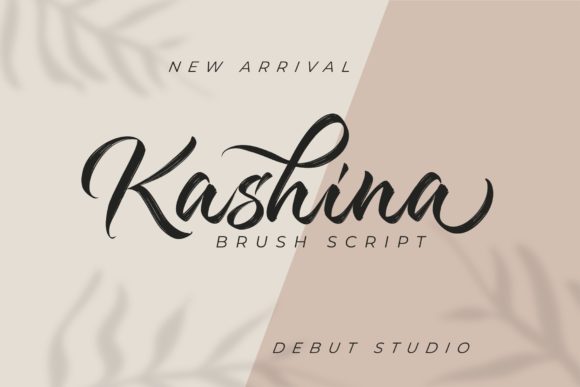
Behold, the enchanting Kashina Script Font, a masterpiece of digital artistry meticulously crafted by the talented artisans at Debut Studio. This exquisite font family exudes elegance and charm, captivating hearts with its undeniable allure. Immerse yourself in the world of script fonts, where creativity knows no bounds and self-expression takes center stage.
Kashina Script is more than just a collection of letters; it's an invitation to unleash your inner artist. With its graceful curves, delicate strokes, and undeniable charm, this font will transform your words into works of art. Let your imagination soar as you create breathtaking wedding invitations, where every letter dances with joy and romance.
But the allure of Kashina Script doesn't stop at weddings. Its versatility knows no bounds. Whether you're crafting beautiful stationary art, designing captivating social media posts, or adding a touch of elegance to your personal projects, this font will elevate your creations to new heights.
Step into the world of Kashina Script and experience the magic of typography. Let your words flow effortlessly from your keyboard, adorned with the beauty and grace of this remarkable font. Embrace the power of self-expression and create designs that speak volumes, leaving an unforgettable impression on all who behold them.
With Kashina Script, the possibilities are endless. Unleash your creativity, embrace the beauty of typography, and transform your words into works of art. Let this remarkable font ignite your imagination and elevate your designs to new heights.